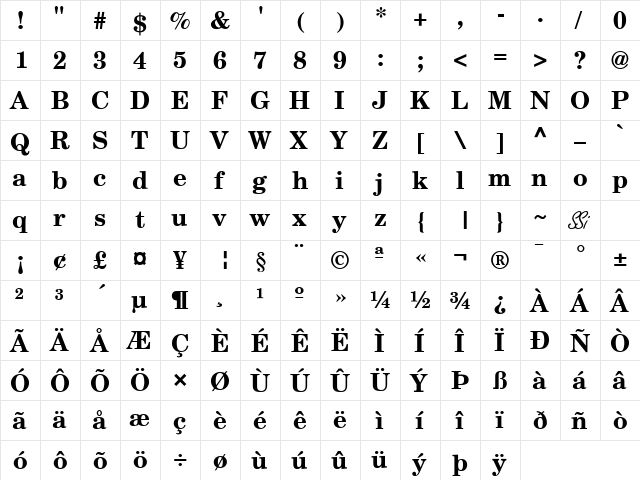
Century Schoolbook Reprise SSi Bold
Design Context for Century Schoolbook Reprise SSi Typeface
Century Schoolbook Reprise SSi offers clean, dependable letterforms without strong stylistic allegiance, making it a practical choice for designers who need flexibility. Its bold stroke weight gives it real presence on the page.